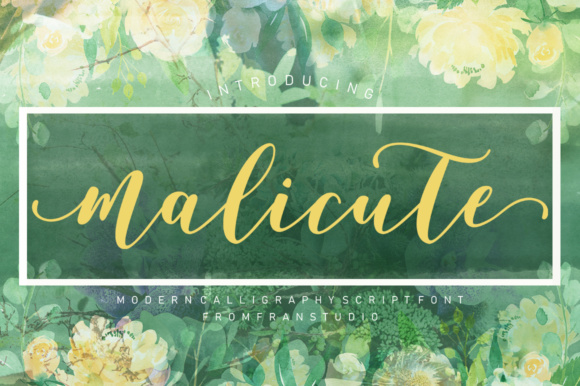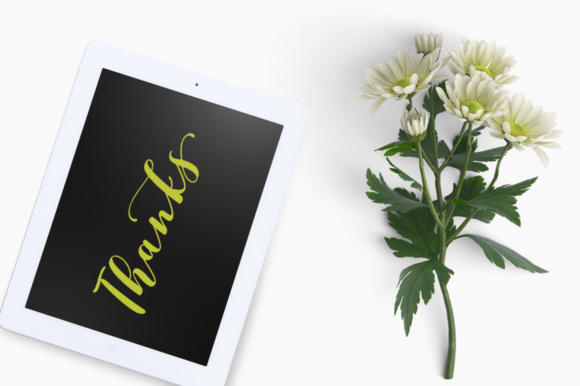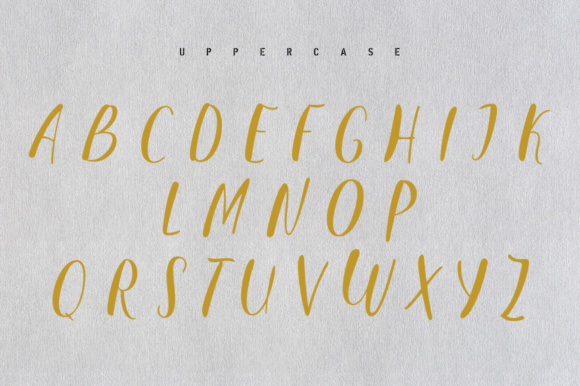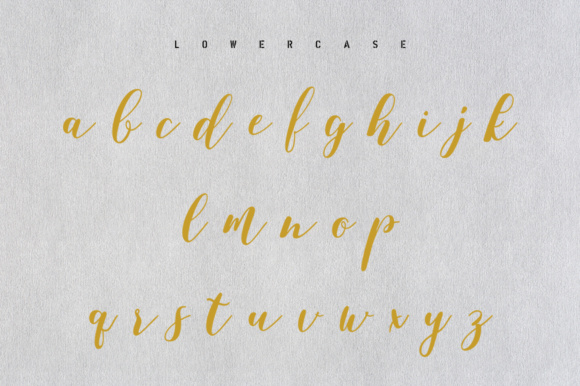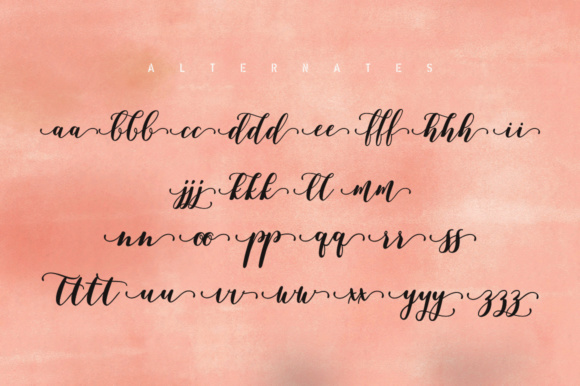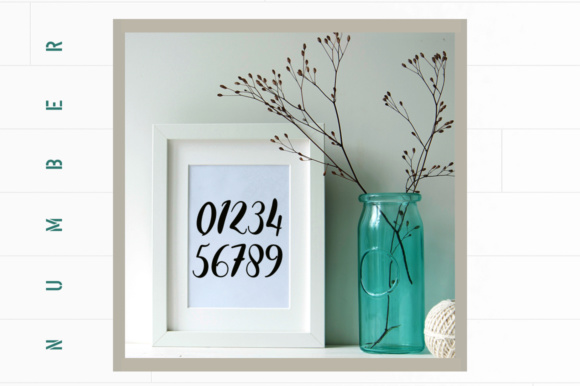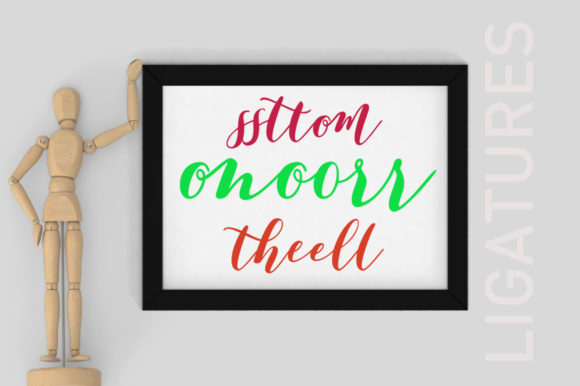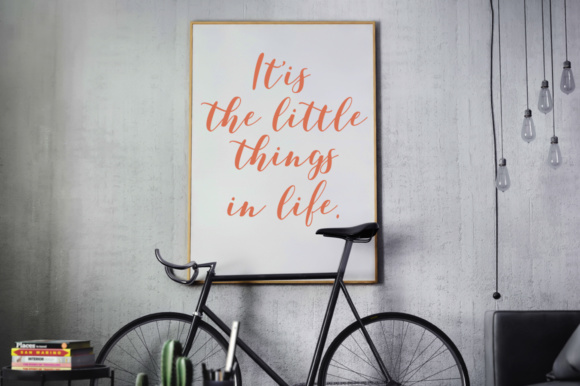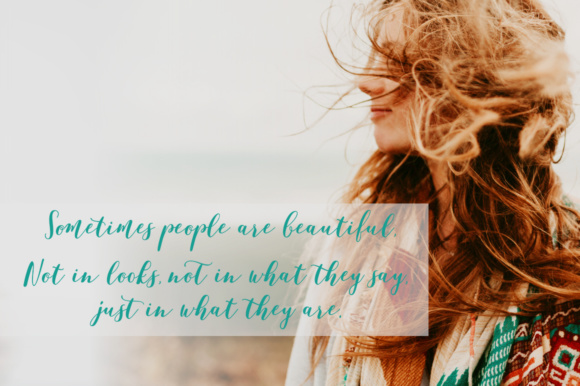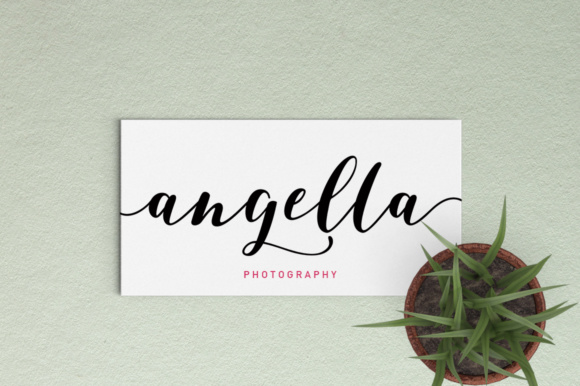
Malicute Script Font
About Malicute Script Font
Malicute Script is a modern calligraphy font with smooth lines and a varying baseline. It will give your design a classic and elegant touch. Malicute can be used for various purposes such as: headings, signatures, logos, wedding invitations, and much more!